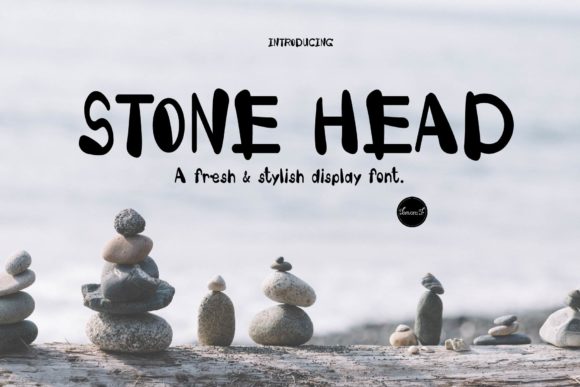
Prepare yourself to behold Stone Head, a display font so strikingly captivating, it will catapult your designs into the stratosphere of brilliance. Its relaxed and timeless demeanor exudes an aura of sophistication that will leave your audience spellbound.
With Stone Head, your logos will radiate an air of distinction, your magazines will captivate readers with their effortless elegance, your book covers will demand attention with their timeless appeal, and your posters will become instant showstoppers, leaving an indelible mark on all who lay their eyes upon them.
Stone Head's versatility knows no bounds. Its unassuming presence lends itself seamlessly to a vast array of creative endeavors, effortlessly elevating your designs to new heights of visual splendor. Whether you seek to craft logos that command attention, create magazine layouts that inspire and engage, design book covers that whisper tales of adventure and intrigue, or fashion posters that ignite imaginations, Stone Head will be your steadfast companion, guiding you towards creative triumph.
Welcome to a world where creativity flourishes and boundaries dissolve. Stone Head invites you to embark on a journey of limitless possibilities, where your imagination takes center stage and your designs shine brighter than ever before. Its relaxed and timeless style will effortlessly complement your vision, adding a touch of sophistication that will leave your audience breathless.
With Stone Head, you hold the key to unlocking a treasure trove of creative potential. Its versatility extends far beyond the realm of logos, magazines, book covers, and posters. Unleash your imagination and explore the myriad ways in which Stone Head can transform your designs into masterpieces.
Join the ranks of creative visionaries who have discovered the transformative power of Stone Head. Let its timeless elegance elevate your designs, captivating the hearts and minds of your audience. Stone Head is more than just a font; it's an open invitation to explore the boundless realms of creativity, where dreams take flight and masterpieces are born.